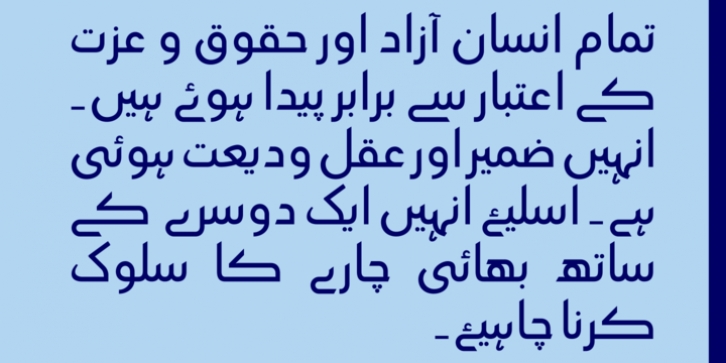
The earlier release of Hasan Amal typeface was in 2008. It has introduced modern OpenType Arabic Typeface which combines the features of Kufi and Naskh Style with noticeable both curvy and sharp segments beside the refinements of its letters which made it more readable.
Hasan Amal is used in both titles and text in modern graphic and publication projects.It supports Arabic, Persian and Urdu languages and contains three weights: light, regular and bold.
HS Amal is an OpenType family with (7) weights, produced to support Arabic, Persian and urdu. It contains many various alternatives and good additions.